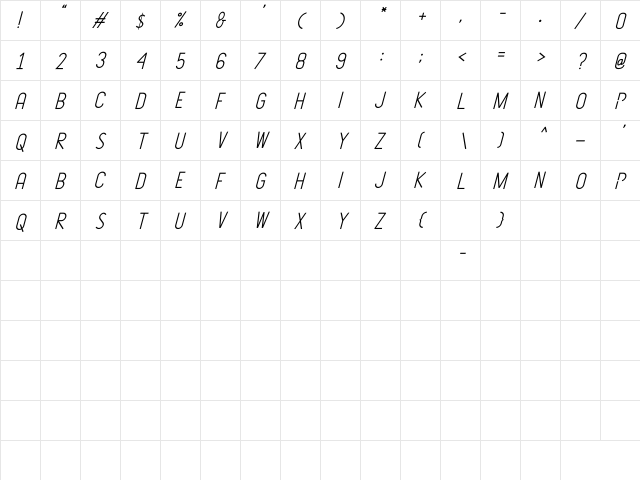
Queen Signature Duo Italic Regular
Design Context for Queen Signature Duo Italic Typeface
Queen Signature Duo Italic offers clean, dependable letterforms without strong stylistic allegiance, making it a practical choice for designers who need flexibility. The slanted form adds forward momentum and visual energy.
Pro Tip: Use Queen Signature Duo Italic for emphasis, pull quotes, and subheadings where its slanted energy can add rhythm to the layout.